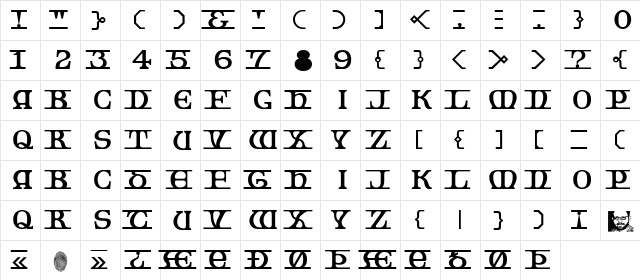
TrudeauDemo Regular Font Preview
TrudeauDemo Regular
TrudeauDemo Regular Font Details
Design Context for TrudeauDemo Typeface
TrudeauDemo offers clean, dependable letterforms without strong stylistic allegiance, making it a practical choice for designers who need flexibility.